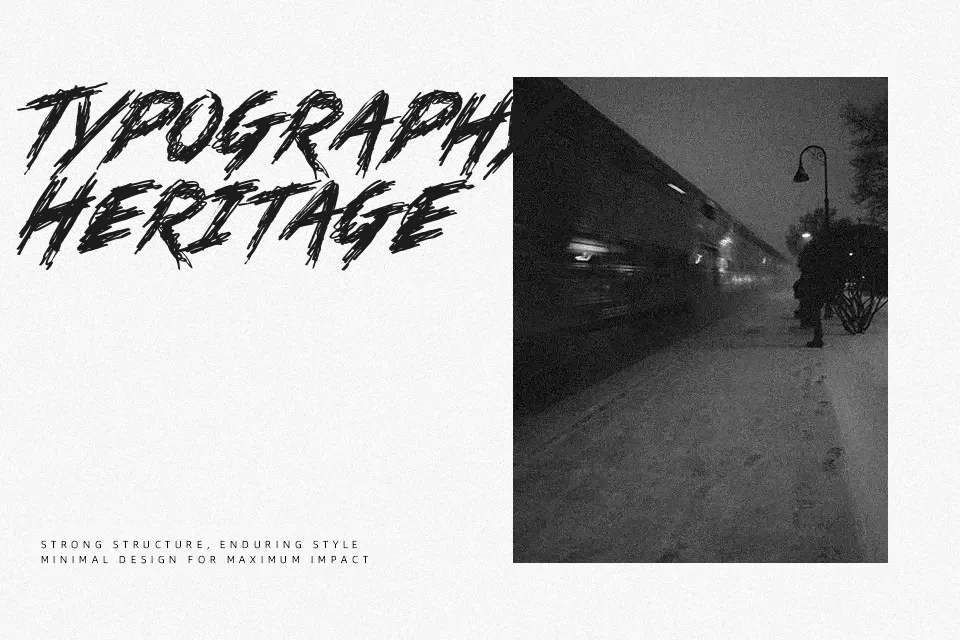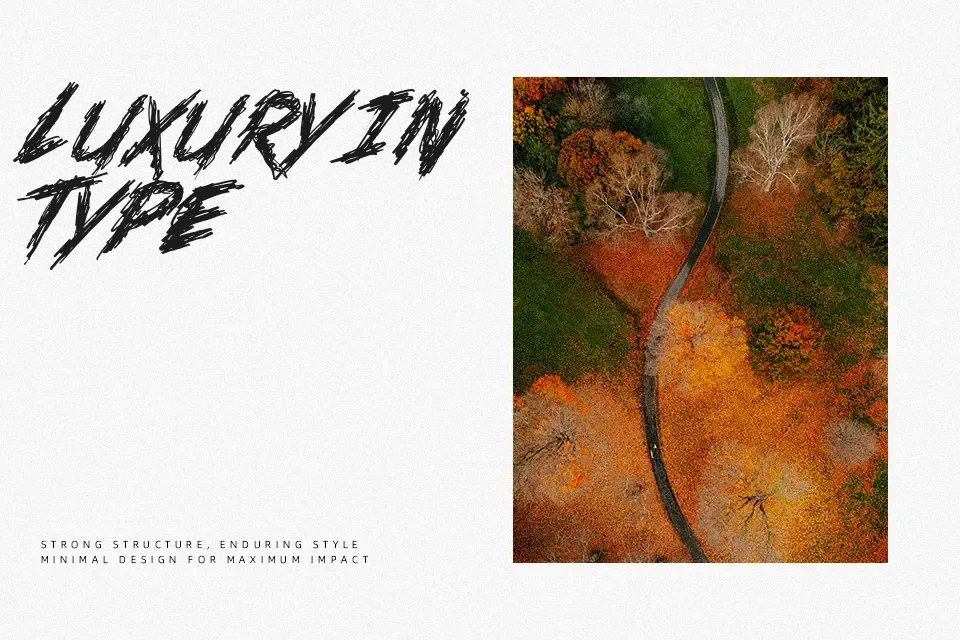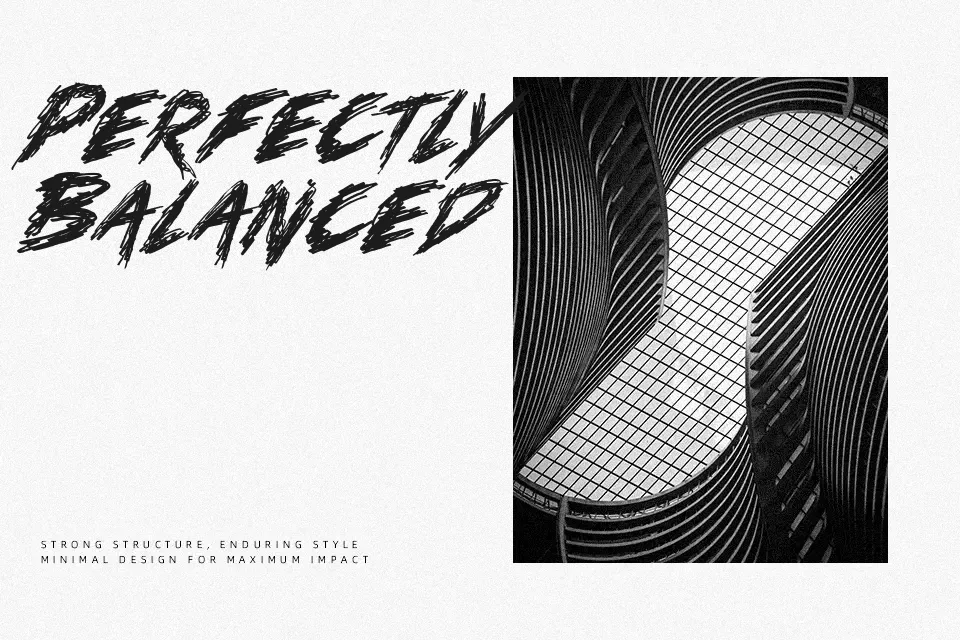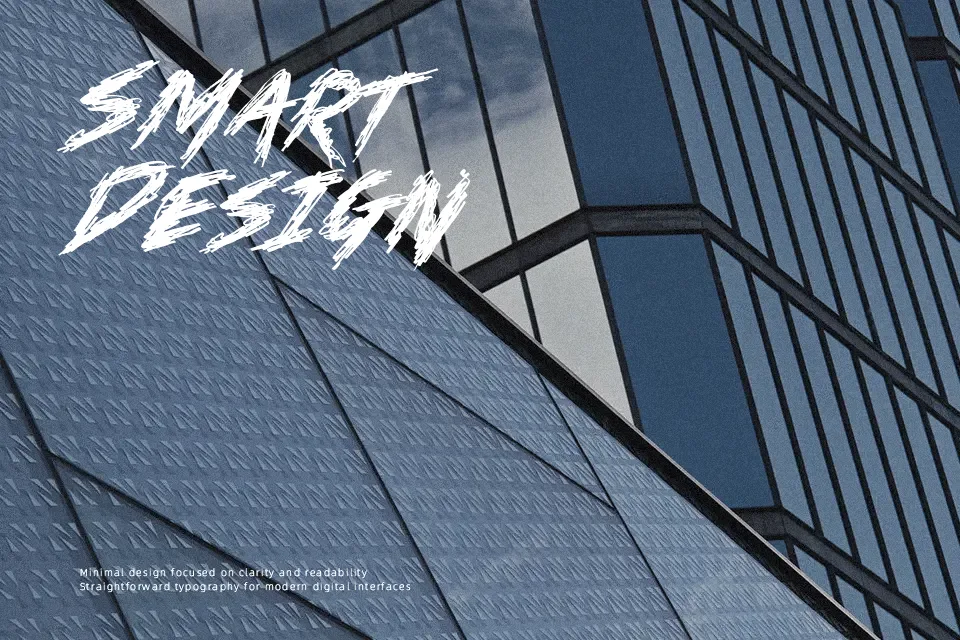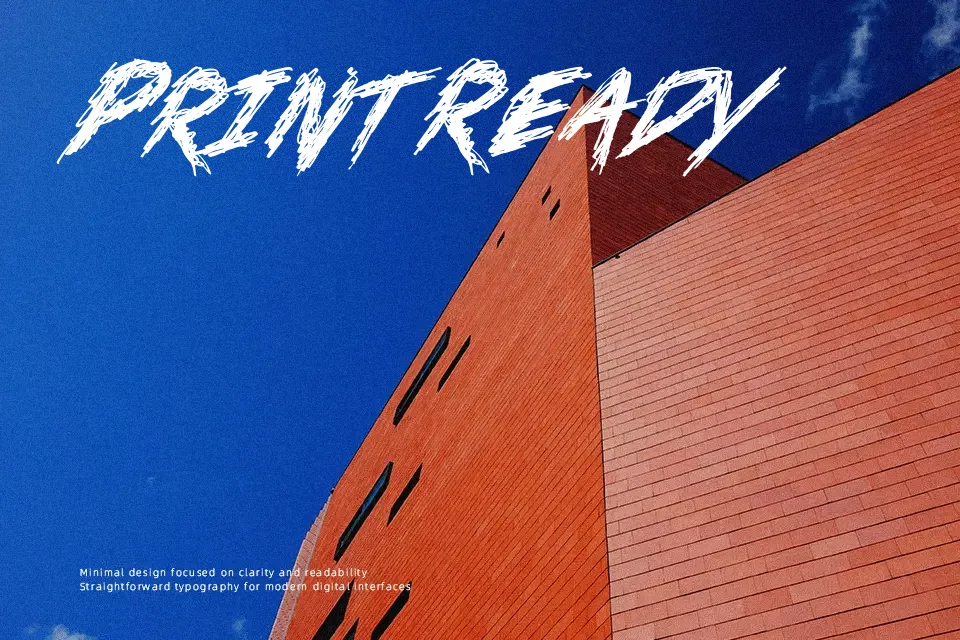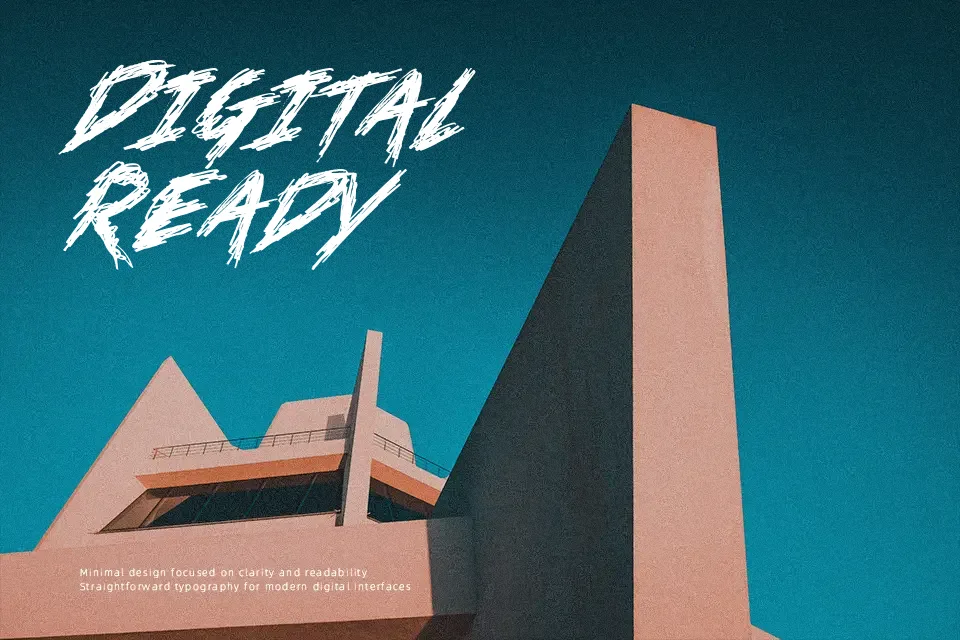
No Mercy Font
No Mercy Font uses heavily distressed display letterforms with broken edges, irregular internal texture, and a forceful uneven rhythm. The strokes appear thick overall, but their damaged surfaces create shifting visual weight across each character. Spacing is best kept generous enough to preserve the silhouette of individual letters, especially in uppercase headlines. It works well for horror titles, album covers, event posters, and dark apparel graphics where a rough finish supports the message. The texture gives large words strong impact, though small sizes and tightly set lines become harder to scan. For practical layouts, reserve it for short, high-contrast display copy.
Perfect for halloween, headline, and music, with a dark and decorative style.